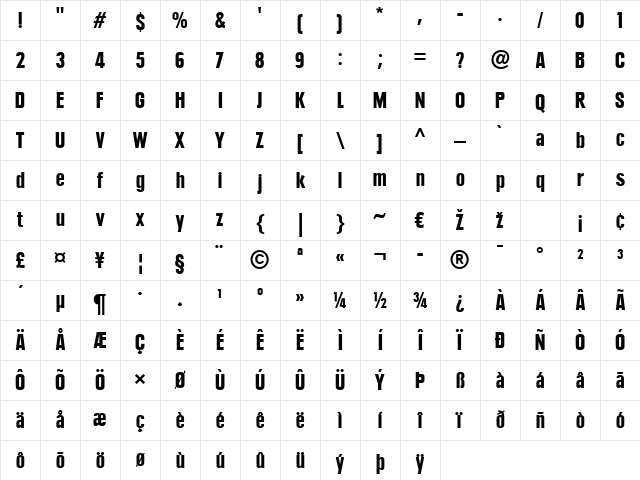
Plak LT BlackCondensed Regular
Design Context for Plak LT BlackCondensed
Plak LT BlackCondensed is a composed and adaptable typeface that performs quietly and consistently across a wide range of design contexts. Its slender proportions lend an understated elegance to any composition. Its narrow stance lets it pack a punch even in space-constrained designs.
A practical choice for tight layouts, multi-column editorial design, and space-efficient signage.